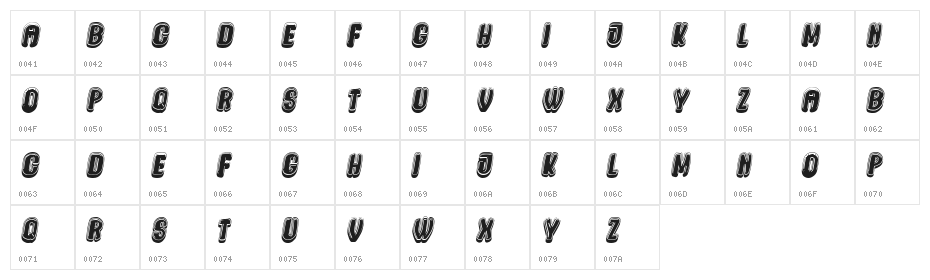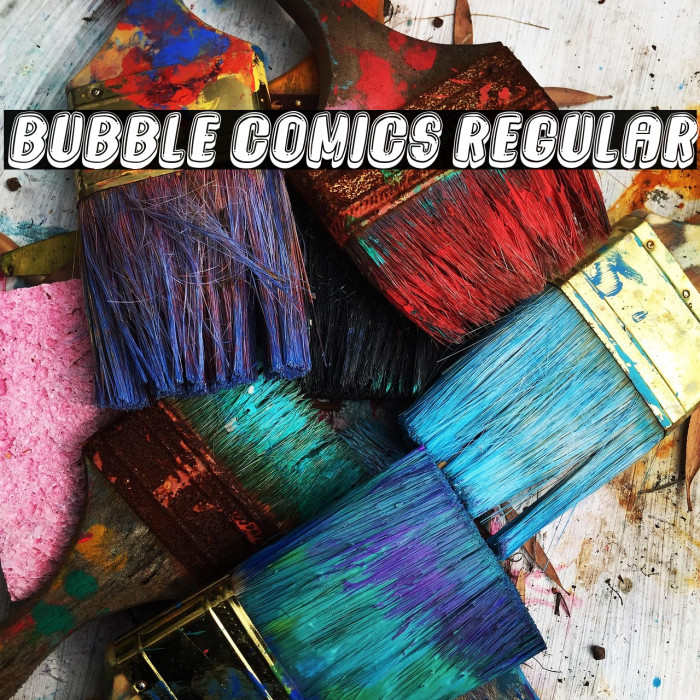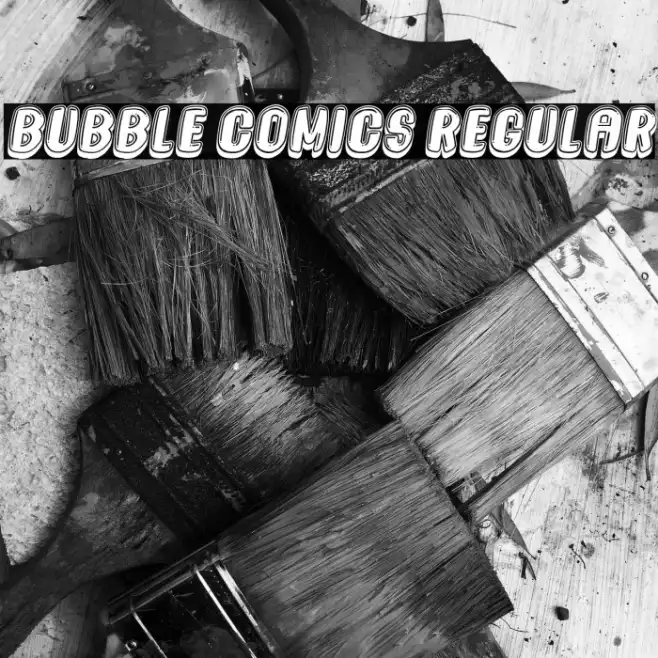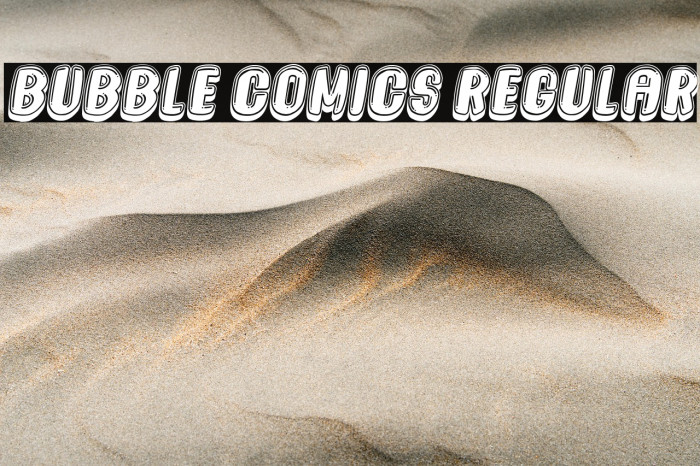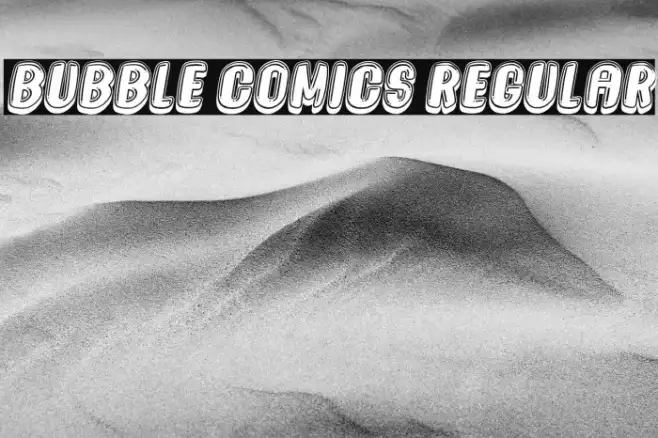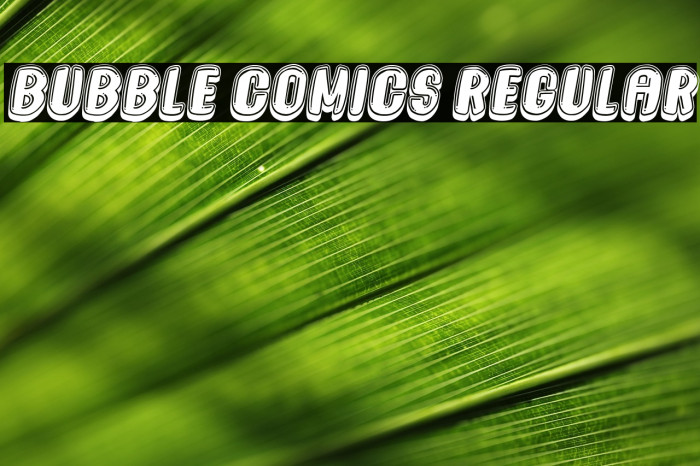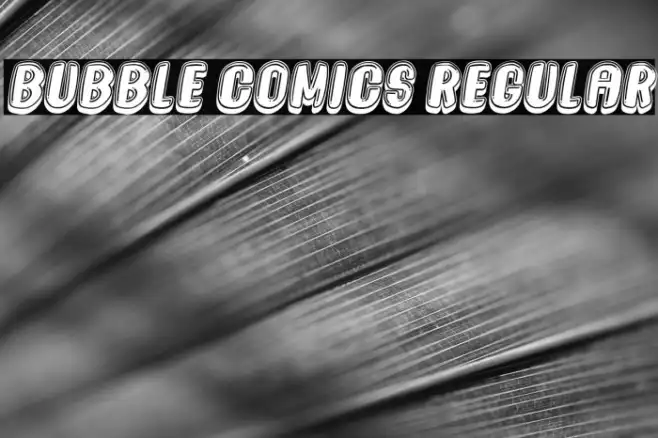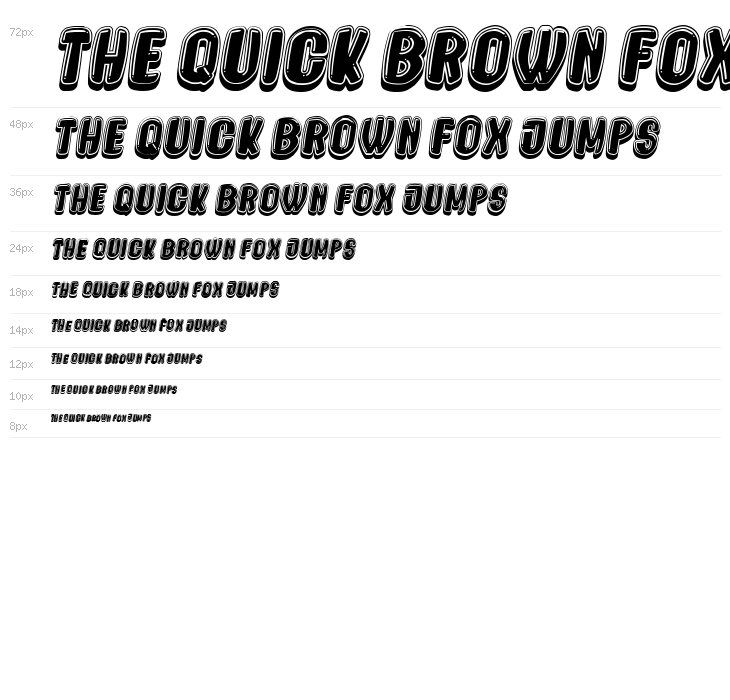
Bubble Comics Regular Font
Bubble Comics Regular Description
This font features a playful and bold design, characterized by its thick, rounded letterforms and a comic-style aesthetic. Each character is outlined with a bold black stroke, giving it a three-dimensional effect that makes it stand out. The letters are slightly condensed, with a consistent width that maintains readability while adding a dynamic flair. The font's bubbly appearance is reminiscent of comic book lettering, making it ideal for projects that require a fun and engaging visual impact. The consistent stroke width and rounded edges contribute to a friendly and approachable style, suitable for a variety of creative applications.
| Overall Style | Playful, Comic |
| Proposed Projects | Ideal for comic books, children's books, playful branding, posters, and any project seeking a fun and engaging look. |